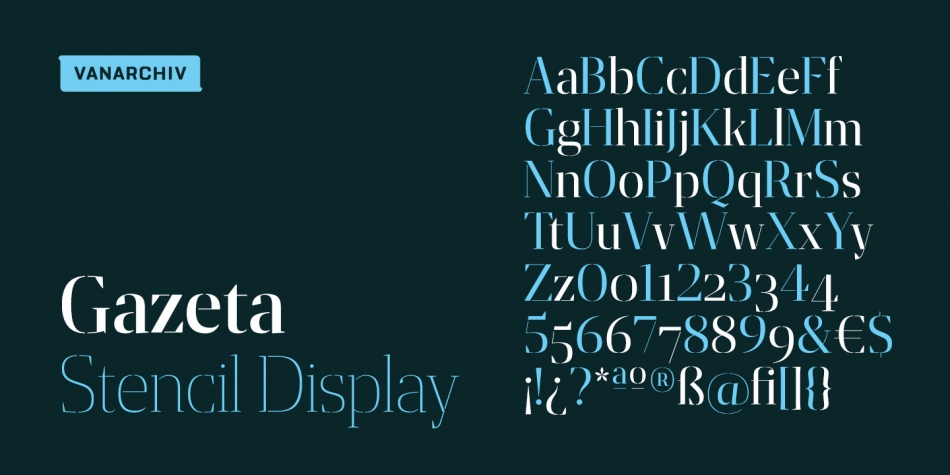
Gazeta Stencil Display Font
Gazeta Stencil Display Font is perfect for newspaper headlines, editorial magazine layouts, journalism brand identities, news media campaigns, press conference materials, publishing house branding, investigative report presentations, media company signage, and contemporary news publication designs.
What makes Gazeta Stencil Display Font exciting is its powerful fusion of journalistic authority with industrial strength that creates headlines that demand attention and communicate news with uncompromising clarity. The font features bold stencil letterforms with newspaper-inspired proportions that evoke the urgency and importance of breaking news while maintaining the professional credibility essential for trusted journalism. Its commanding presence and editorial aesthetic make it perfect for media organizations that need to communicate news authority, editorial excellence, and the immediate impact that defines compelling journalism in today's fast-paced information landscape.
Gazeta Stencil Display Font family includes various editorial weights such as Regular, Bold, and Heavy variations, often featuring newspaper-optimized stencil cuts and journalistic decorative elements. The family may include press symbols, editorial ornaments, and news-themed alternates that enhance the font's media aesthetic, providing designers with comprehensive options for creating authoritative typographic compositions that capture the essence of professional journalism and news communication.